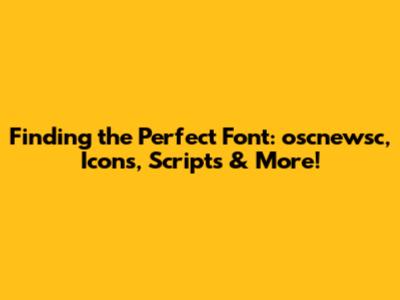
Hey font fanatics! Ever found yourself on a quest, desperately searching for that perfect font to make your project pop? Maybe you're after something sleek and modern, or perhaps a touch of vintage charm is what you need. Whatever the vibe, the world of fonts is vast and exciting. This article is your friendly guide, focusing on a few key areas that frequently come up in font searches: oscnewsc, icons, script fonts, and the ever-popular DaFont. Let's dive in and unravel the secrets to finding the ideal typography for your creative endeavors!
Unveiling the World of Fonts: A Beginner's Guide
Before we jump into specifics, let's quickly cover some font basics. Fonts are much more than just the letters we read; they're the visual personality of your design. They can evoke feelings, set a mood, and ultimately, communicate a message. Think about it: a playful, handwritten script font gives off a different vibe than a clean, sans-serif typeface. The right font can make or break a design, so choosing wisely is crucial. When we talk about fonts, we're often dealing with two primary categories: serif and sans-serif. Serifs have those little decorative strokes at the ends of the letters (think Times New Roman), while sans-serif fonts lack them (like Arial). Then there are script fonts, which mimic handwriting, and display fonts, which are designed for headlines and grabbing attention. Knowing these basics can significantly narrow down your search and help you pinpoint the font that truly speaks to your project's soul.
Finding the right font often feels like a treasure hunt. You start with a general idea – maybe you want something that screams 'oscnewsc' (we'll get to that!), or you need a font that's packed with cool icons. Perhaps you're dreaming of a beautiful script font to add a touch of elegance. And, of course, there's DaFont, a massive online repository where font enthusiasts often begin their search. Let's break down each of these elements and how they play a role in your font journey. Remember, choosing a font is a personal experience. Don't be afraid to experiment, try different options, and see what feels right for you and your project. Ultimately, the best font is the one that best communicates your message and connects with your audience. So, grab your virtual magnifying glass, and let's start exploring!
Decoding "oscnewsc": What Does It Mean for Your Font Search?
Alright, let's talk about the mysterious term 'oscnewsc'. Often, when you see this in a font search, it's a specific naming convention or a reference to a particular font style or designer. Without further context, 'oscnewsc' could represent a brand, a design style, or even a typo! One of the first things you'll want to do when encountering this term in your search is to investigate its origin. Try searching for 'oscnewsc font' along with other related keywords. Check if there are any specific websites, designers, or design firms associated with that term. See if it is something like a design collection or a specific typeface style (e.g. bold, rounded, minimalist). You could also try looking at font forums and discussions. Community members often have valuable insights and might be able to shed some light on what 'oscnewsc' stands for in this context.
Another important aspect of using 'oscnewsc' in your search is to combine it with other relevant terms. If you're looking for a script font, try searching for 'oscnewsc script font'. If you're after a specific type of design aesthetic, consider adding keywords such as 'modern', 'vintage', or 'geometric' to your search query. This will help you to narrow down your search results and find the most relevant fonts that match your requirements. Remember, the more precise your search, the better the results. Also, consider the platforms you use for your font search. Some websites might index fonts differently, so you might get different results on Google Fonts compared to DaFont. Experiment with different search engines, font websites, and even social media to see if you can uncover any hidden gems related to 'oscnewsc'.
Font Icons: Elevating Design with Visual Communication
Now, let's switch gears and talk about font icons. Guys, font icons are essentially tiny, scalable vector graphics packaged as fonts. Think of them as a magical shortcut to adding visually appealing elements to your design without using bulky image files. Instead of uploading individual icons, you can simply type a character, and voila – an icon appears! This is super useful for websites, apps, and any project where you want to include symbols and visual cues. Popular font icon libraries include Font Awesome, Material Design Icons, and IcoMoon. These libraries offer a vast range of icons, from social media logos to navigation arrows, all readily available in a font format. Because they are fonts, you can easily change their size, color, and style using CSS, making them incredibly flexible for your design needs. Think about how many times you've seen a little shopping cart or a menu icon on a website. Those are often implemented using font icons!
When choosing font icons, consider the overall aesthetic of your project. Do you need clean, minimalist icons, or something more detailed and illustrative? Check for the icon styles that best match your brand's personality. Also, pay attention to the license of the font icons. Some are free for both personal and commercial use, while others require attribution or a paid license. Read the fine print to ensure you're using the icons legally. Integrating font icons into your design is generally a breeze. You'll typically download the font files and then link them to your website's CSS. From there, you can use HTML tags to add the icons to your page. Each icon has a unique character code that you type in, and the browser displays the corresponding graphic. It's that easy! Font icons are a fantastic way to enhance user experience, create a visually engaging design, and streamline your workflow. Whether you're building a website or designing a presentation, font icons are a valuable tool to have in your arsenal.
Script Fonts: Adding Elegance and Personality
Ah, script fonts – the fonts that bring a touch of elegance and personality to any design. Script fonts mimic handwriting, ranging from formal calligraphy to casual brushstrokes. They're perfect for adding a personal touch, conveying sophistication, or simply creating a more human feel. Think about wedding invitations, logos, and greeting cards. These are just some examples where script fonts shine. The beauty of script fonts lies in their versatility. You can find everything from delicate, flowing scripts to bold, expressive ones. Selecting the right script font for your project depends on the tone you want to set. If you're aiming for formality, choose a font with clean lines and classic elegance. For a more relaxed feel, opt for a script font that looks more handwritten. Just remember, readability is key! Ensure that your script font is easy to read, especially in longer bodies of text. Avoid using highly ornate scripts for large blocks of text, as they can become difficult to decipher. Reserve them for headlines, titles, or short phrases.
When exploring script fonts, pay attention to their features. Some script fonts include ligatures (where two or more letters are joined to create a more flowing look), alternates (alternative forms of letters to add variety), and swashes (decorative flourishes). These features can add extra flair to your design, but always use them tastefully. Also, consider the kerning (the spacing between letters) of the font. Poor kerning can make a script font look clunky and unappealing. Try the font in your design and experiment with the kerning settings to get the best result. Be aware of licensing. Some script fonts are free for personal use, while others require a commercial license. Always check the terms before using a script font for your project. With careful selection and application, script fonts can transform your design, adding a touch of personality and elegance that's hard to beat.
Exploring DaFont: Your Font Paradise
And now, the grand finale: DaFont. DaFont is one of the most popular free font websites out there. It's a vast repository of fonts, offering thousands of options across various categories. From classic serifs to quirky display fonts and everything in between, you're bound to find something that sparks your interest. DaFont's user-friendly interface makes it easy to browse and search for fonts. You can filter by category, style, and even the designer. This helps you narrow down your search and find fonts that meet your specific needs. However, there are a few things to keep in mind when using DaFont. First and foremost, pay attention to the licensing. While many fonts on DaFont are free for personal use, you might need a commercial license for business projects. Always read the license information before using a font, and if you're unsure, it's always best to contact the designer or the website for clarification.